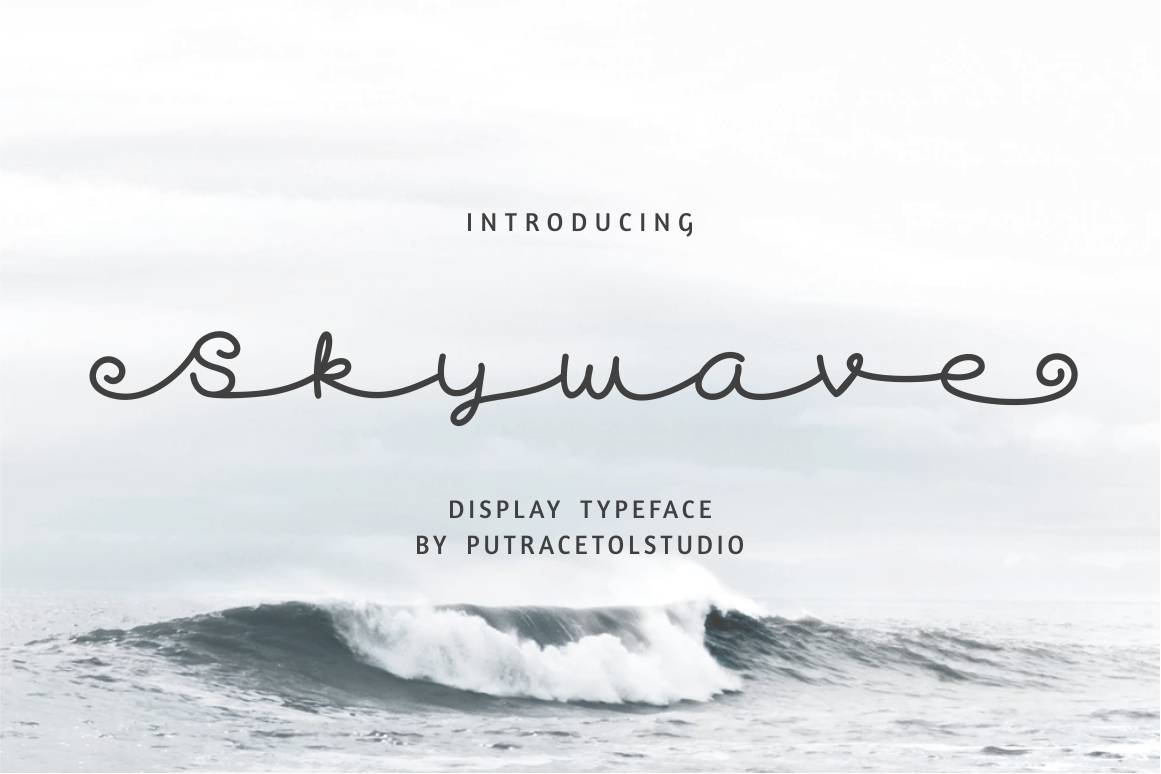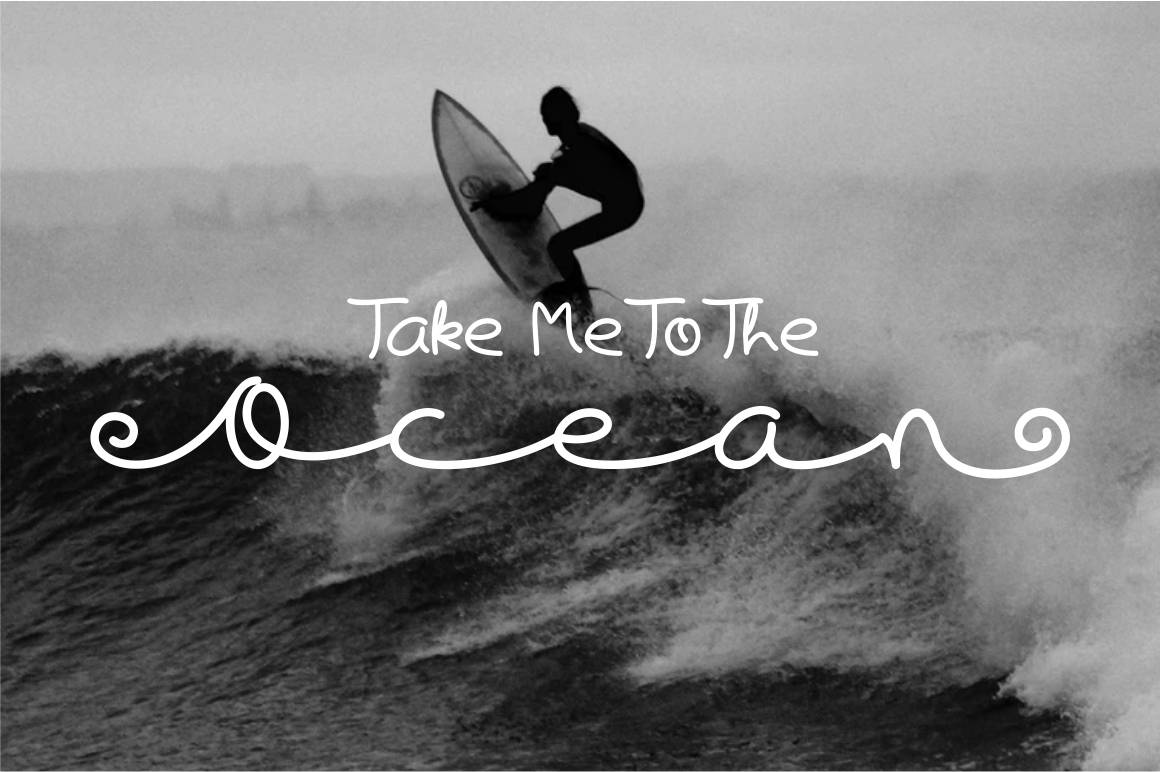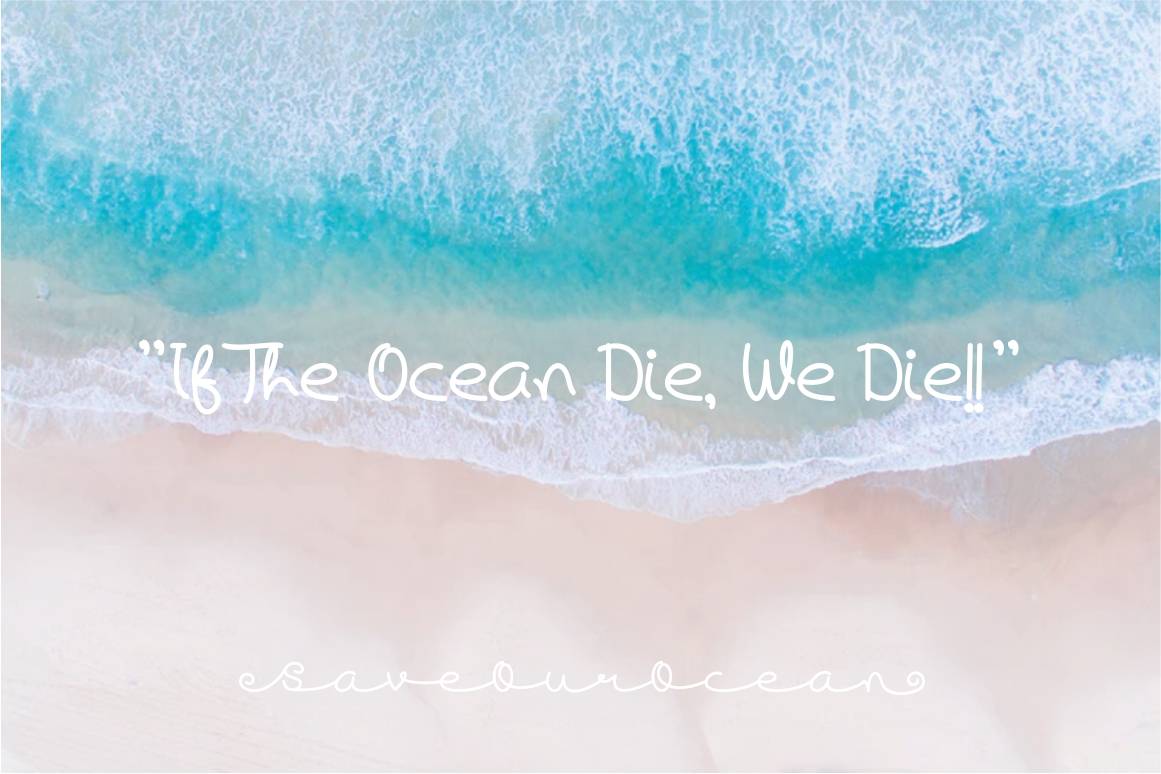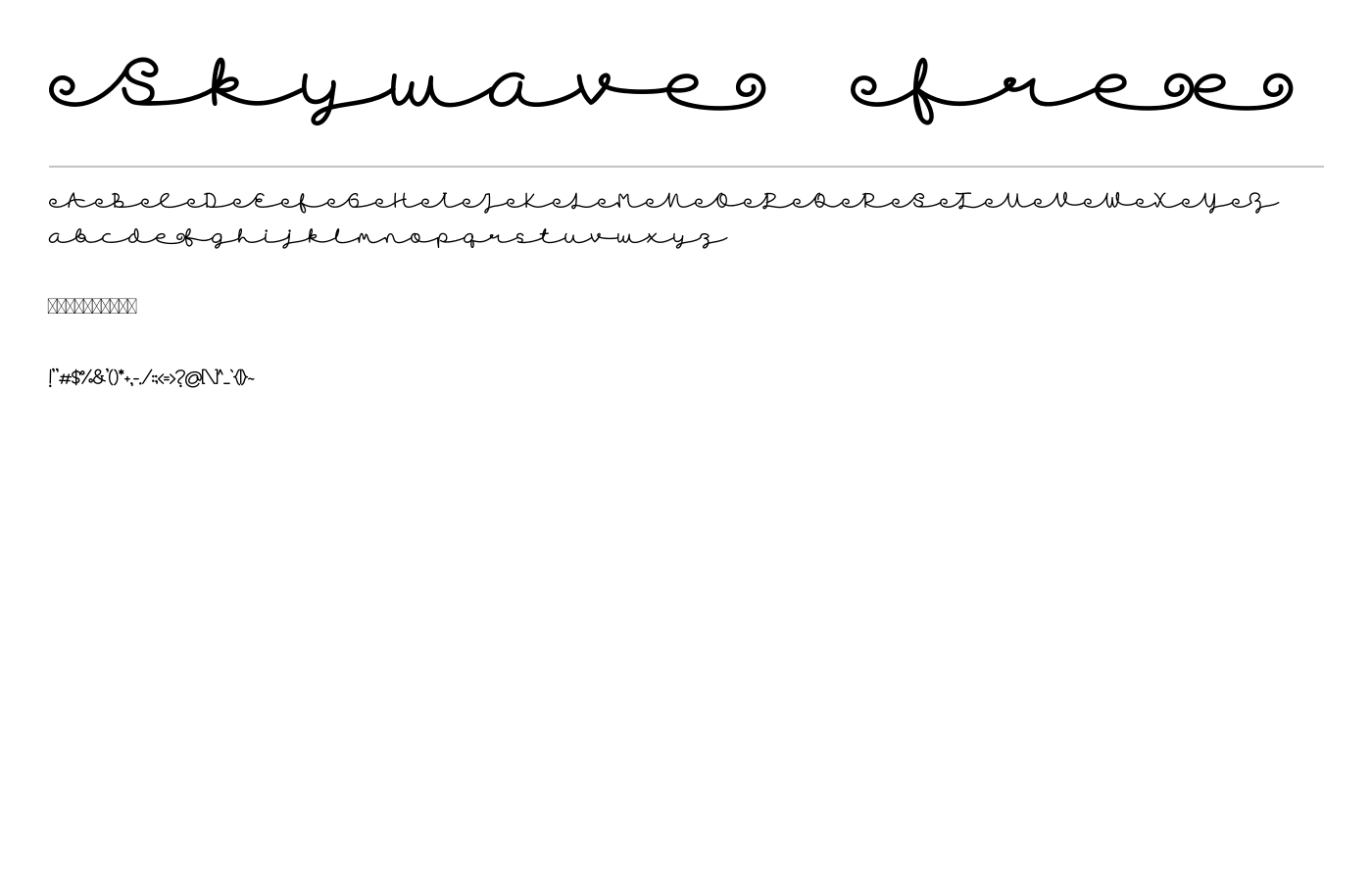
Skywave is a playful and whimsical script font characterized by its delicate, flowing lines and distinctive curled strokes that give it a lively, hand-drawn feel. Its light weight and airy letterforms make it ideal for creative and informal designs, perfect for greeting cards, logos, and invitations where a personal, charming touch is desired. This font’s unique style adds a sense of fun and elegance without feeling overly formal, making it versatile for artistic branding and decorative uses.
Skywave Font
About Skywave Font
| Font family | Skywave Font |
| Designer | Putra novembria candra kusuma |